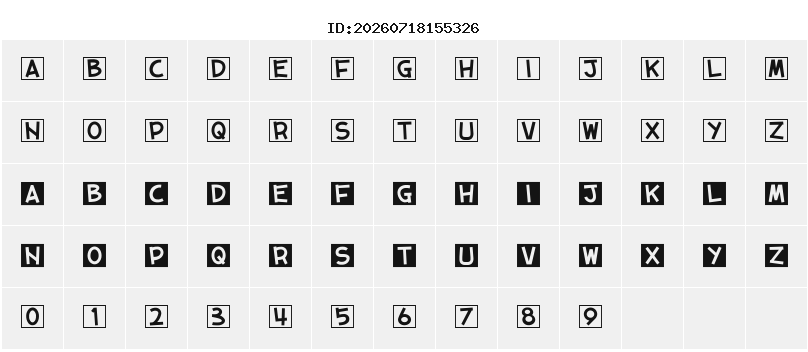
About cube vol.2.ttf
cube vol.2.ttf is a modern, elegant sans-serif font designed for ultimate readability and visual harmony. Perfect for branding, headlines, web design, and print materials.